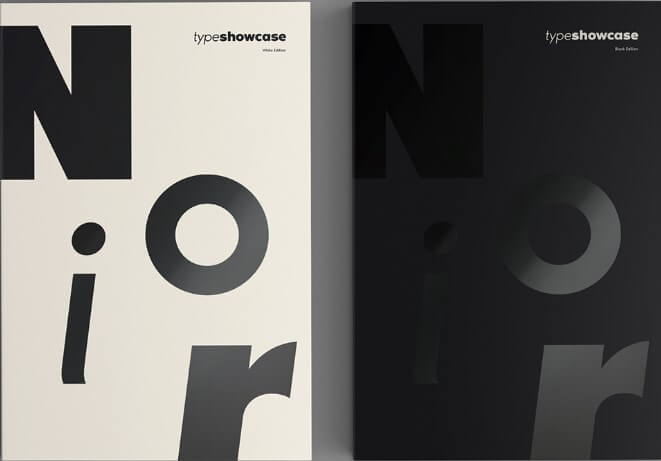
Noir Typeface Font
Hello designers! Do you need a typeface font for any layout designs? A typeface font that can be easily used anywhere. Introducing Noir typeface font! Noir font became designed by means of Matthias guggisberg; a professional dressmaker from Bern, Switzerland.
Noir is a sans serif font own family of 12 fonts with current aesthetics heavily motivated by means of early twentieth century geometric typefaces.